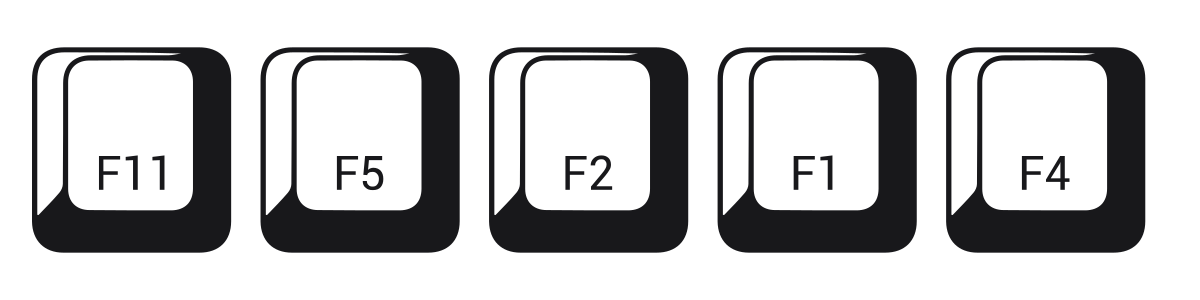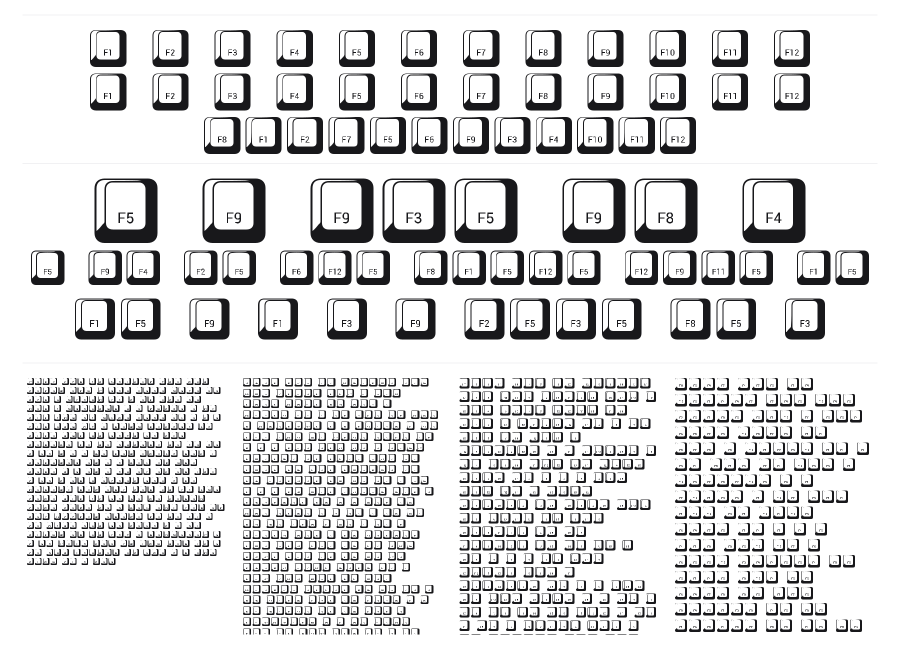
212 Keyboard
212 Keyboard is a dingbat symbol font made up of computer keyboard key illustrations, each rendered as a bold rounded-rectangle icon with a white inset panel. The set focuses on function keys (F1–F12) and similar keyboard labels, making it a handy resource for tech documentation, UI mockups, or gaming-related graphics. Clean, flat, and immediately recognizable.